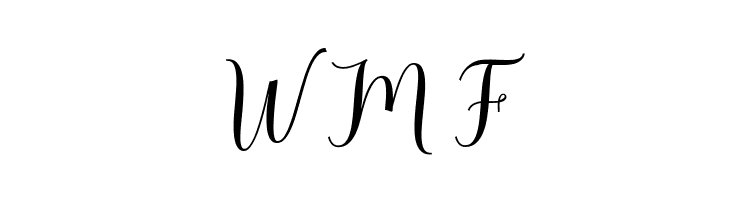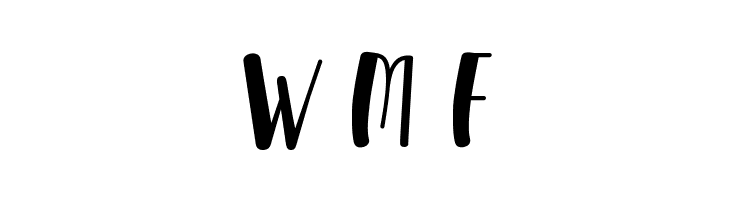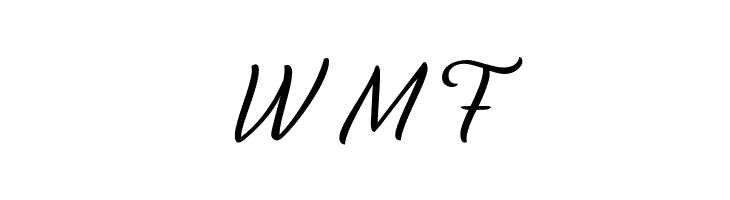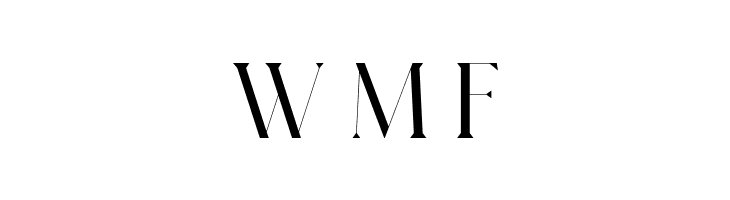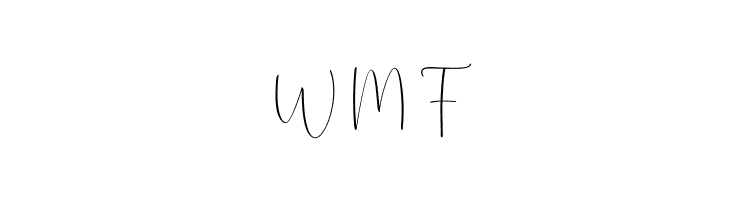
A bold, outlined sans-serif font with a modern and playful style.
A bold, geometric font with a modern and industrial style.
A bold, geometric font with angular strokes and a modern, industrial aesthetic.
An elegant script font with flowing, handwritten-style characters.
A bold, expressive script font with dynamic strokes and playful elegance.
A modern, clean sans-serif font with uniform strokes and rounded edges.
A modern sans-serif font with rounded edges and consistent proportions.
A bold, rounded font with smooth curves and uniform strokes.
An elegant and flowing script font with smooth, cursive letterforms.
A bold, edgy font with sharp, jagged edges and a dynamic, cursive-like style.
A high-contrast, elegant serif font with refined strokes and decorative flourishes.
A bold, decorative font with playful patterns and embellishments.
A whimsical and elegant handwritten script font with playful loops and curves.